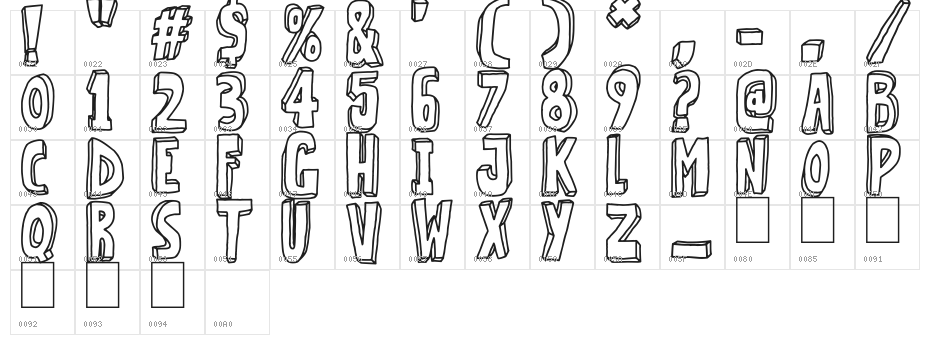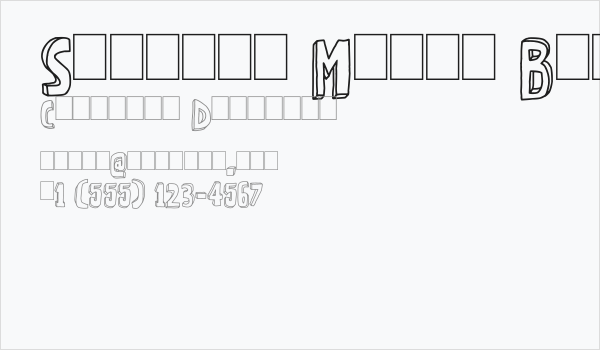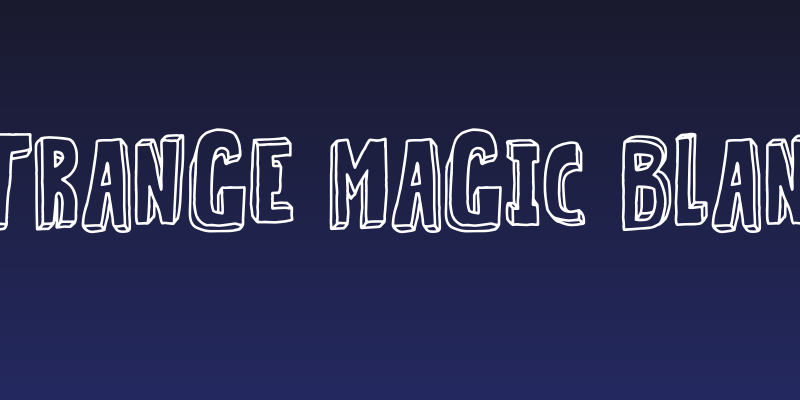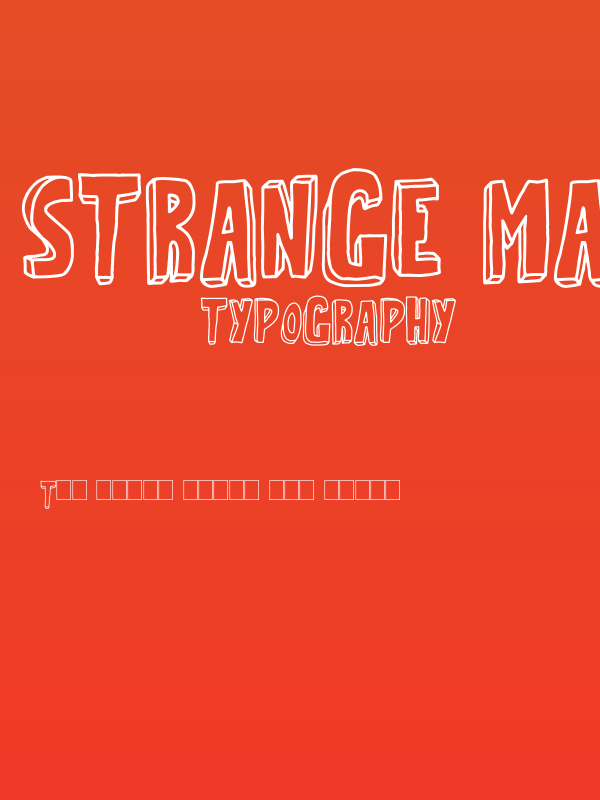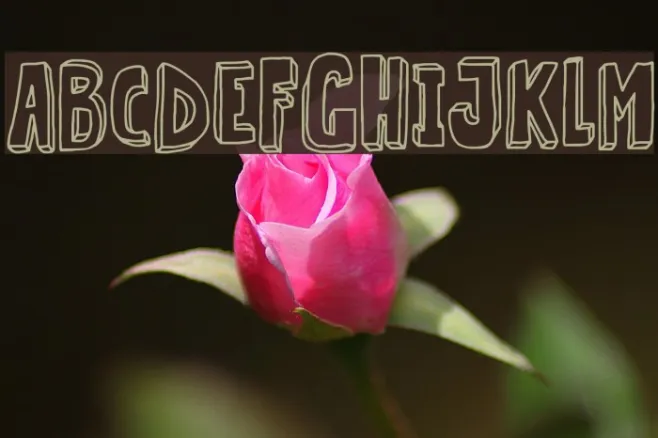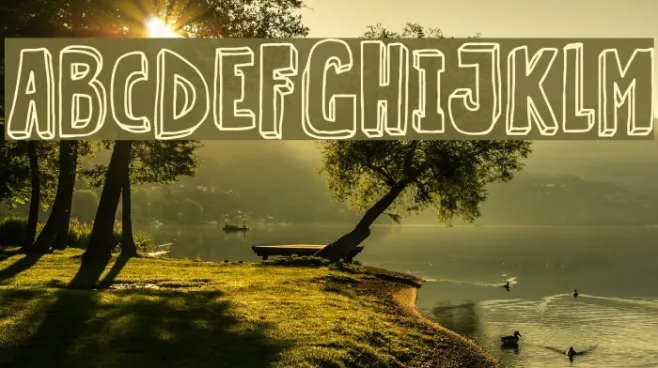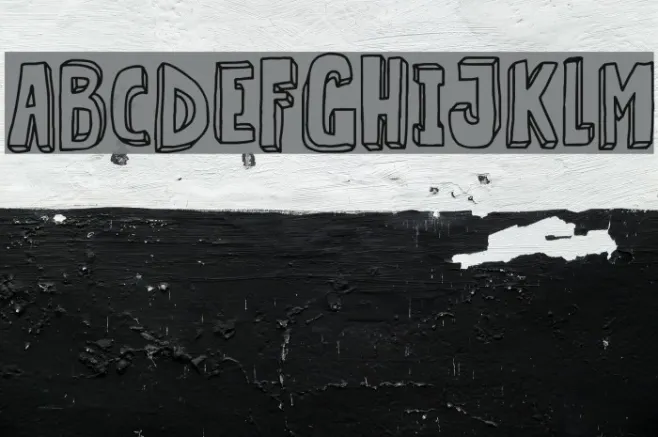
Strange Magic Blank Font
Strange Magic Blank Description
This font features a playful and bold 3D effect with hand-drawn characteristics. Each letter is outlined with a shadow, giving it a unique, dimensional appearance. The strokes are uneven, adding to its whimsical and informal style. The characters are uppercase and lowercase, with numbers and a variety of special symbols. The font's quirky and artistic design makes it stand out, ideal for creative projects that require a fun and engaging look.
| Overall Style | Whimsical, Artistic |
| Proposed Projects | Perfect for children's book covers, comic strips, playful branding, posters, and creative invitations. |